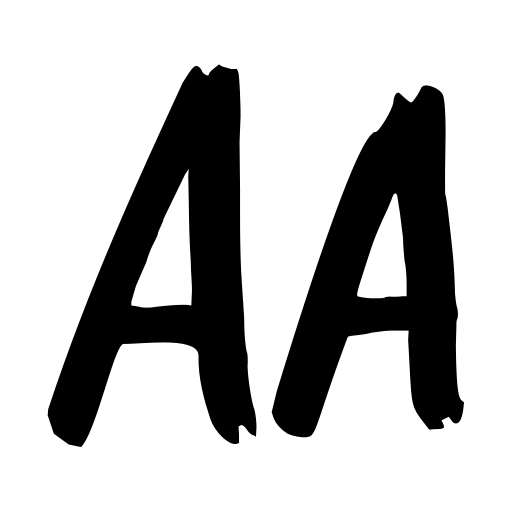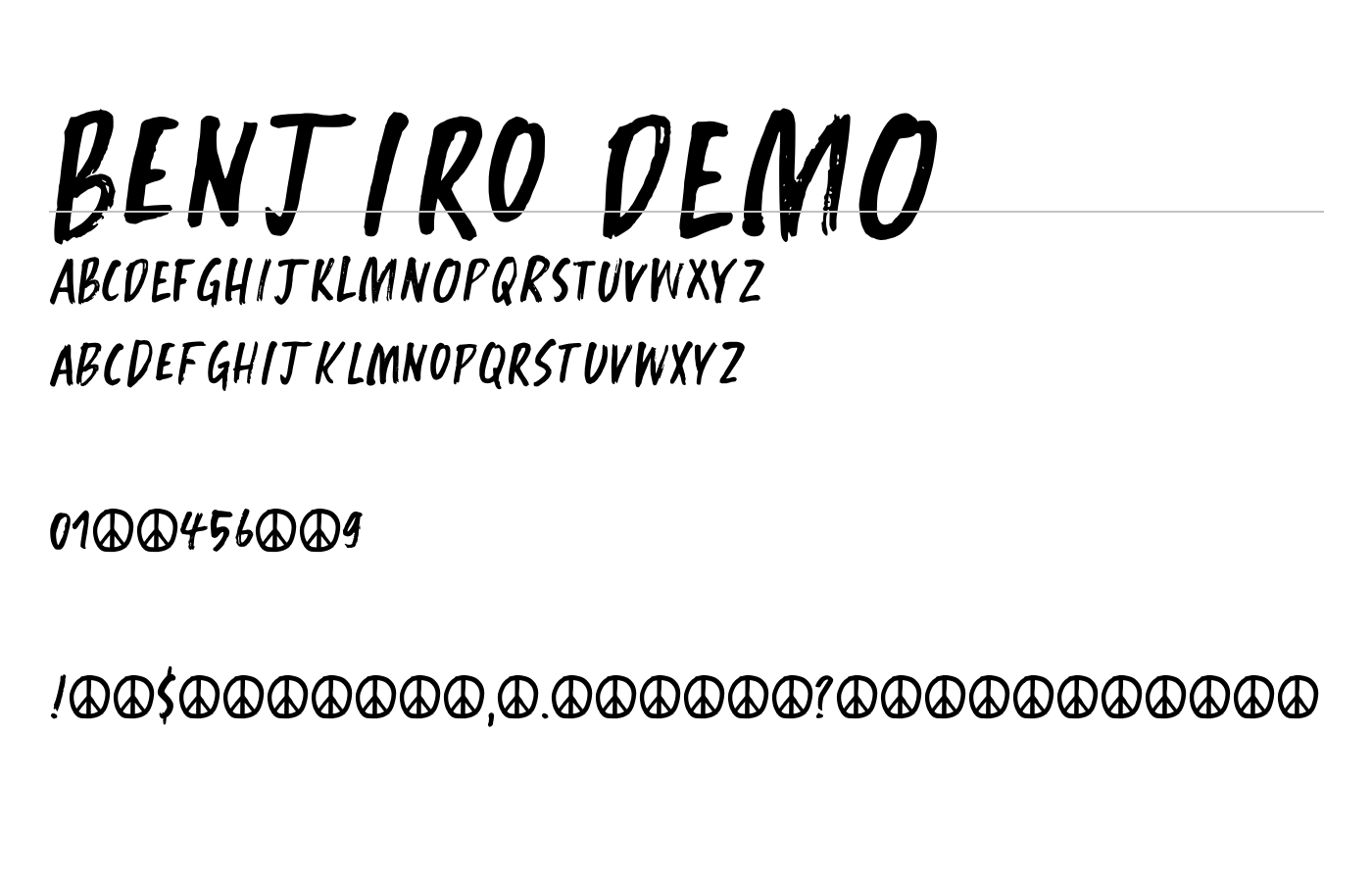
Benjiro DEMO is a bold, hand-drawn sans serif font with a rough, artistic brushstroke style, giving it a playful and casual personality. Its tall, narrow letterforms and high x-height make it great for eye-catching headlines, creative projects, and branding that seeks a lively, informal vibe. This font works well for posters, edgy logos, and any design needing a handcrafted, energetic touch.
Benjiro DEMO Font
About Benjiro DEMO Font
| Font family | Benjiro DEMO Font |